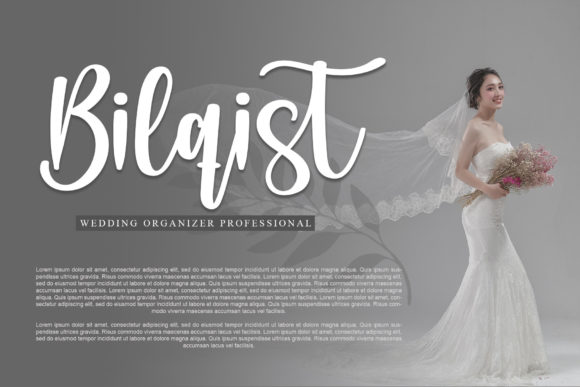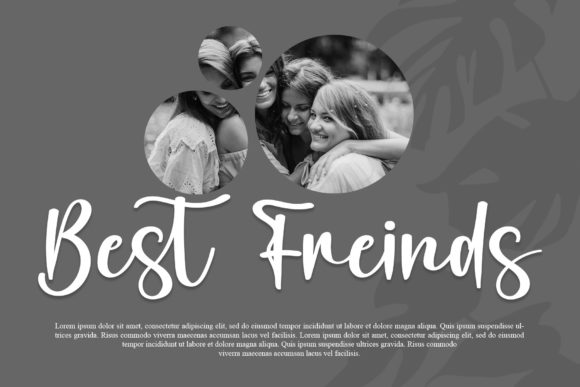
Believe Something Font
db-ku.com - Script & Handwritten -- Believe Something is a sweet and cursive handwritten font. This gentle font will look gorgeous on a variety of design ideas. It will add a joyful and romantic touch to each of your projects!